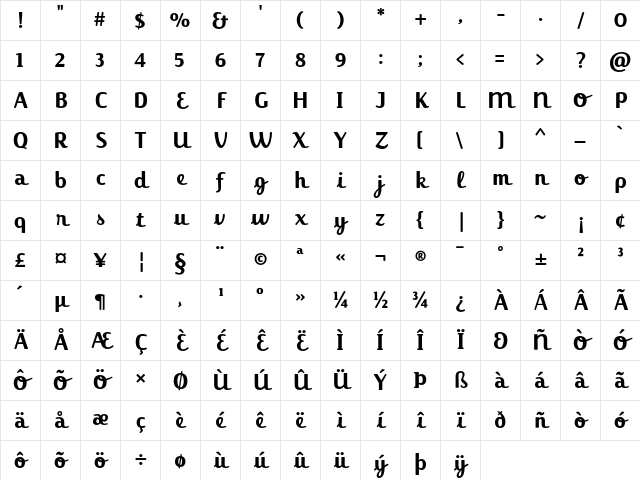
Jackie-Alternate is a composed and adaptable typeface that performs quietly and consistently across a wide range of design contexts. Its bold stroke weight gives it real presence on the page.